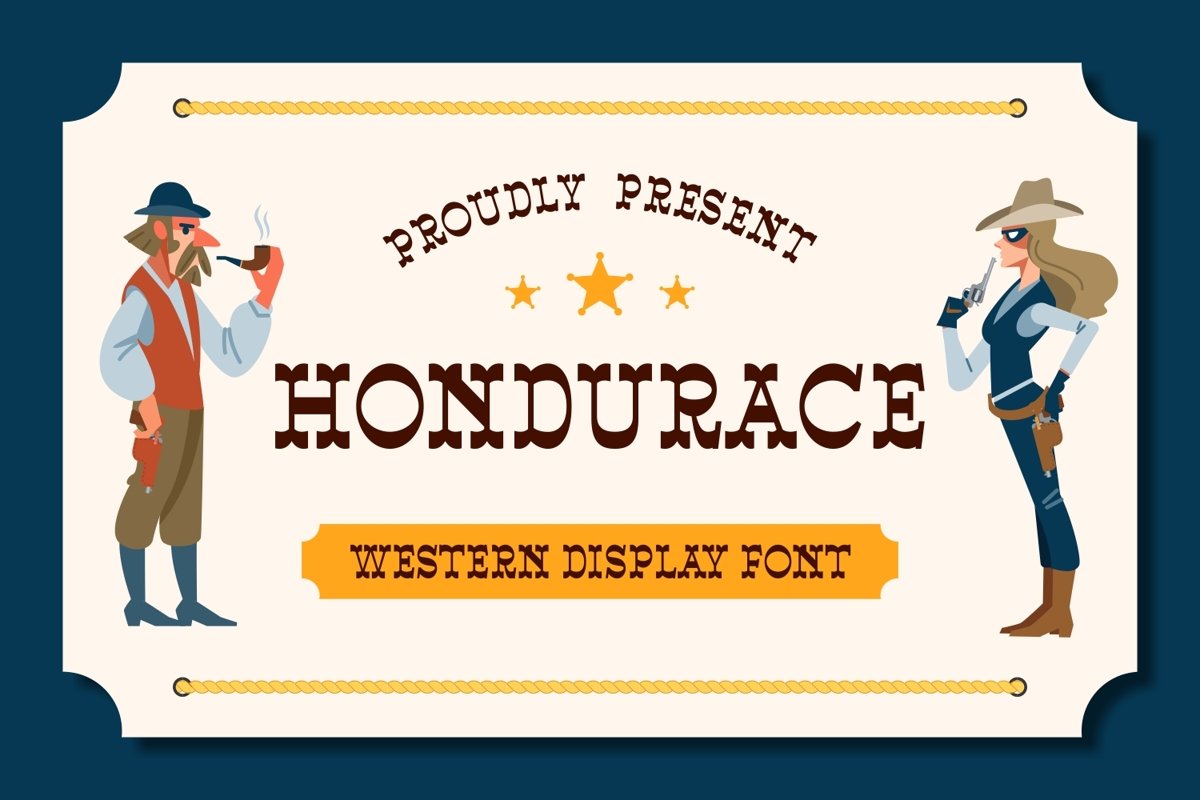
Hondurace is a western display come with cowboy themes. This font have unique serif corner shapes. It matches applies in some designs such as the logotype, brand, packaging, quotes, poster, t-shirt, book, invitation and more custom design. The features uppercase, lowercase, numeral, punctuation & symbol, multilingual support, PUA encoded (fully accessible without additional design software).